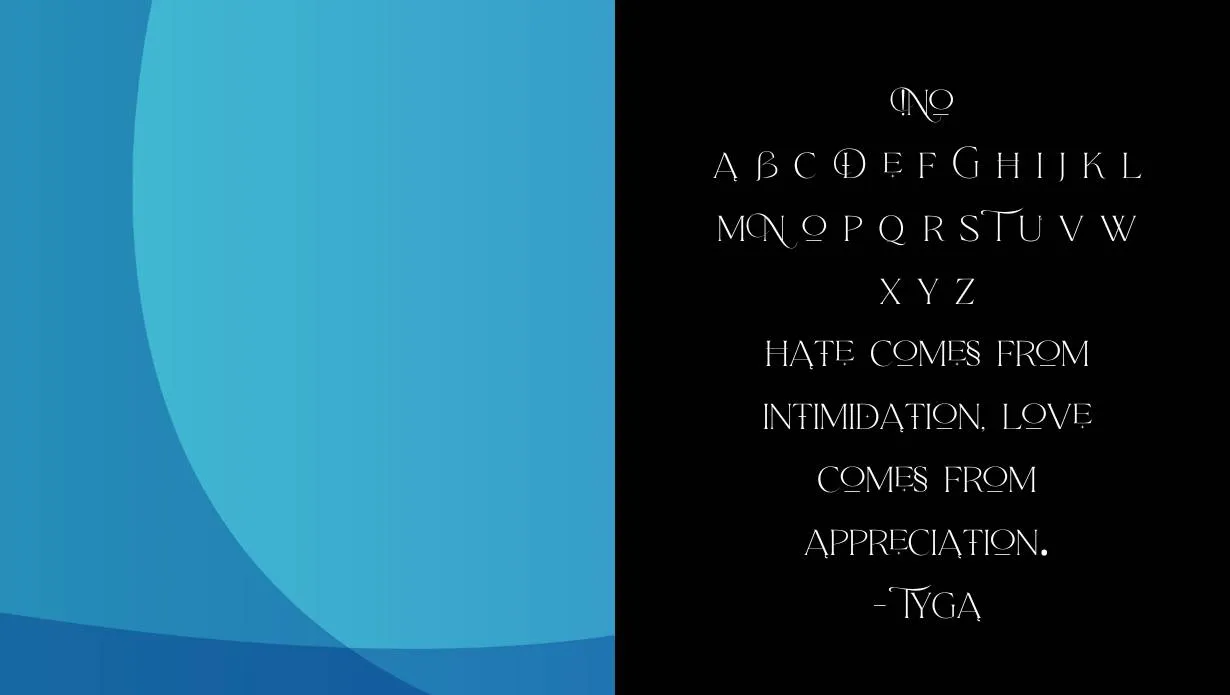
Qene-g Font is a fancy typeface created by Ethiopian designer Qene-g Tsehai. The font has a unique look that makes it stand out from other fonts, and its file format allows for easy installation and uses on a variety of devices.
However, the font does have some drawbacks, such as its lack of support for certain characters and its limited number of weights and styles. However, if you want to pair the typeface with some really cool font then try cheerious font for your design project.
Qene-g Font Family